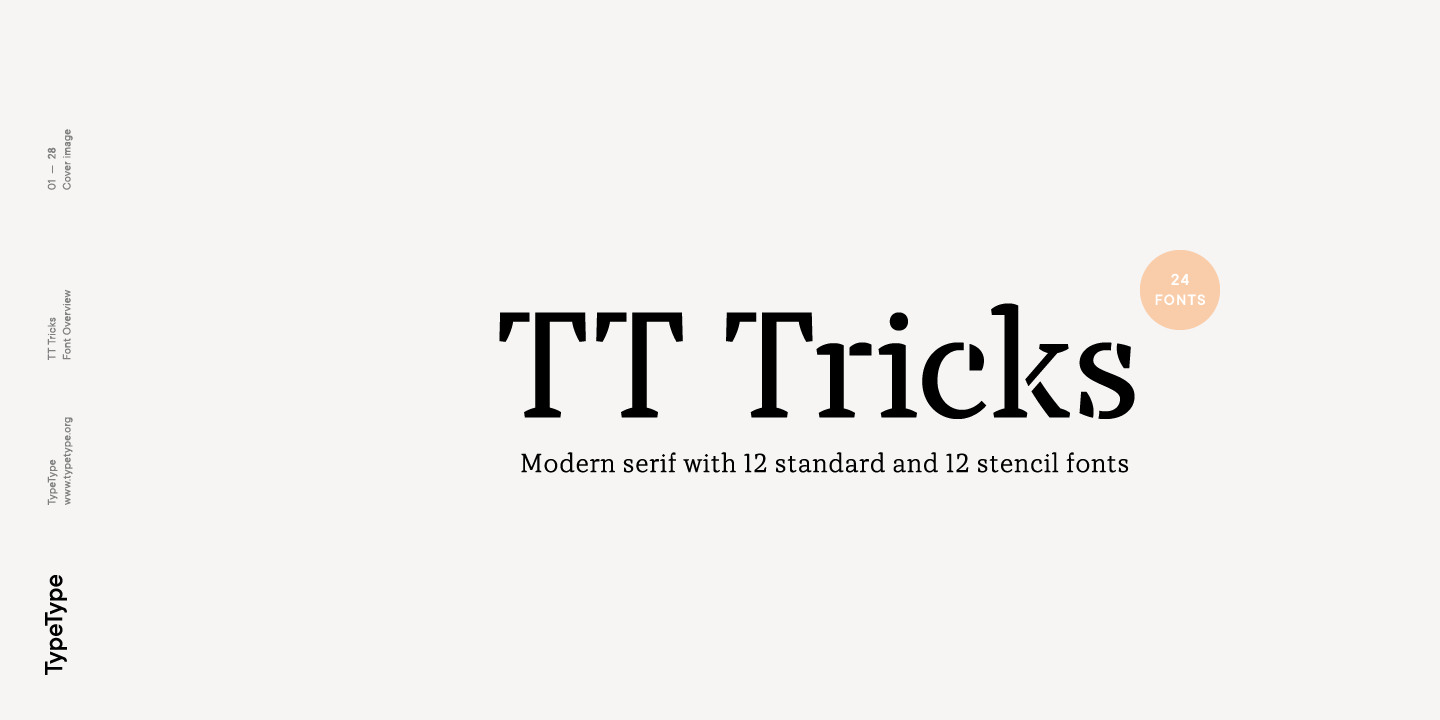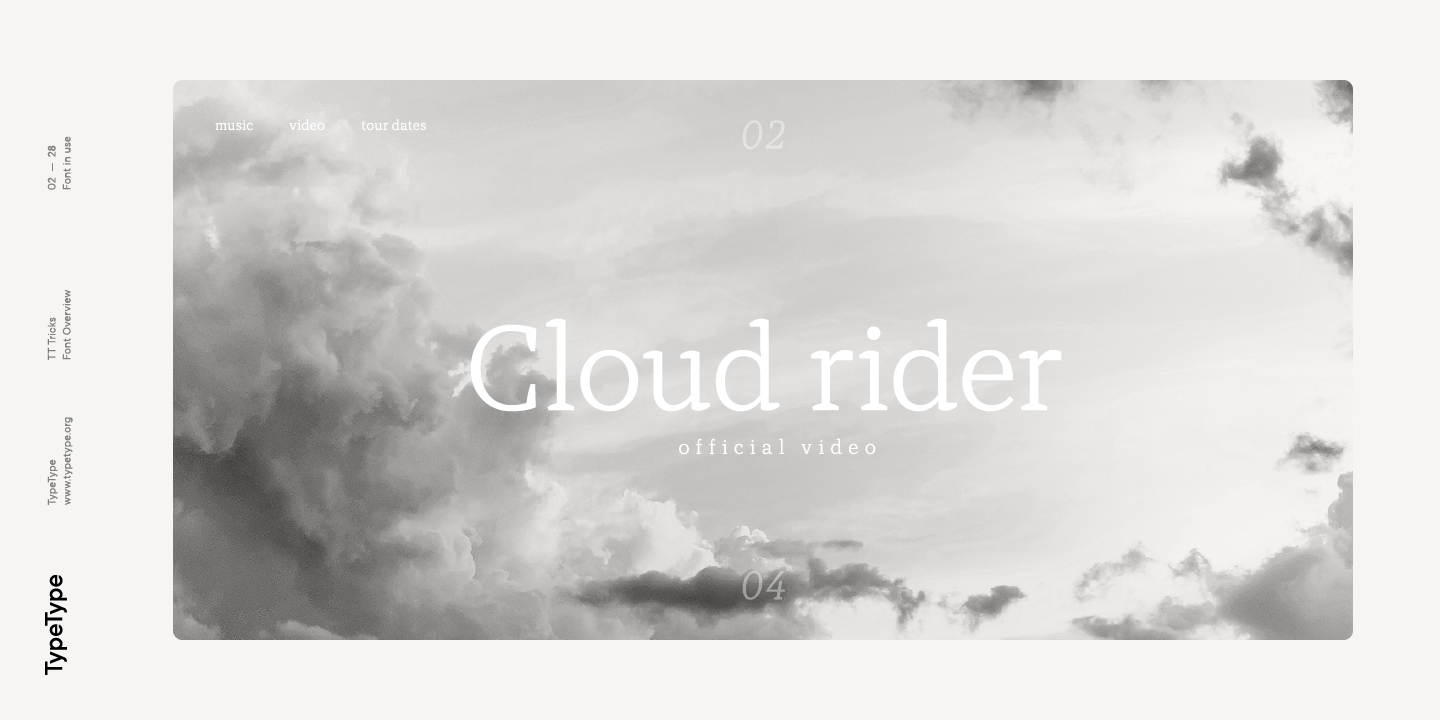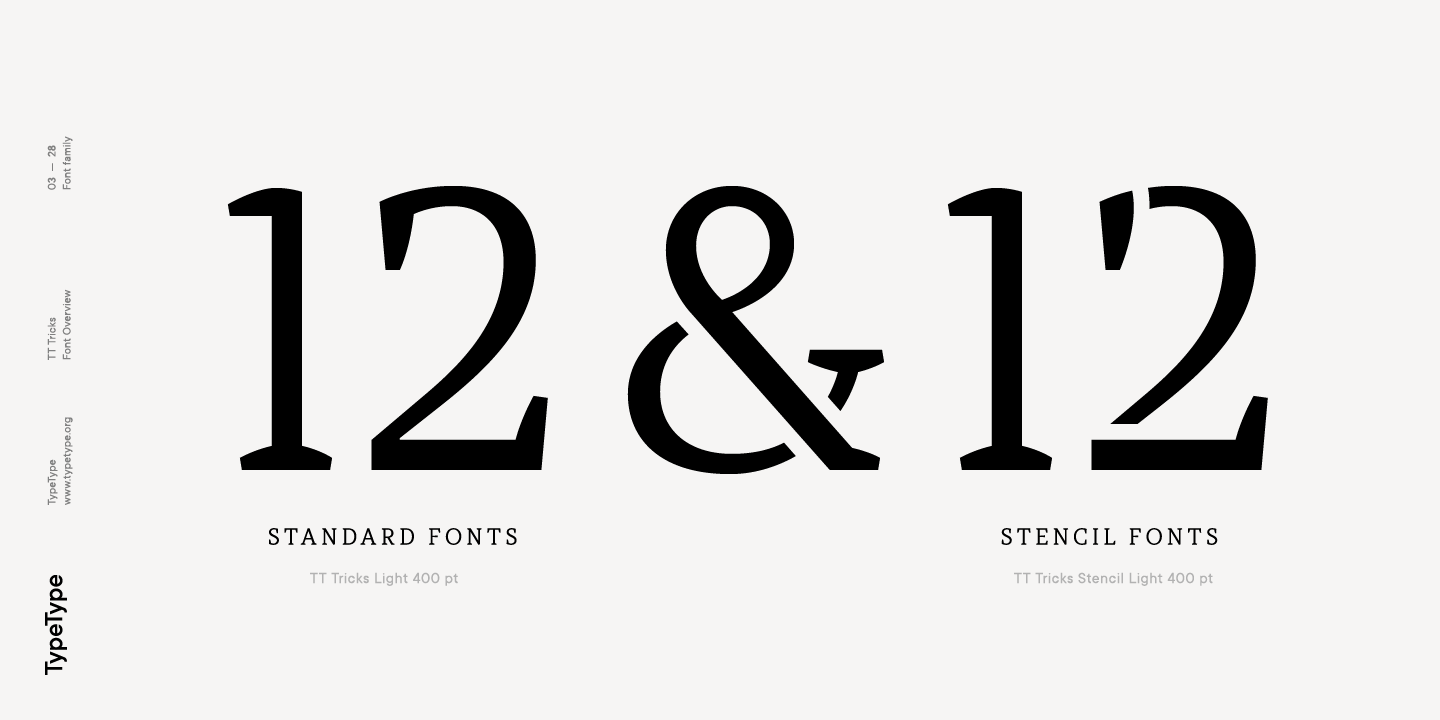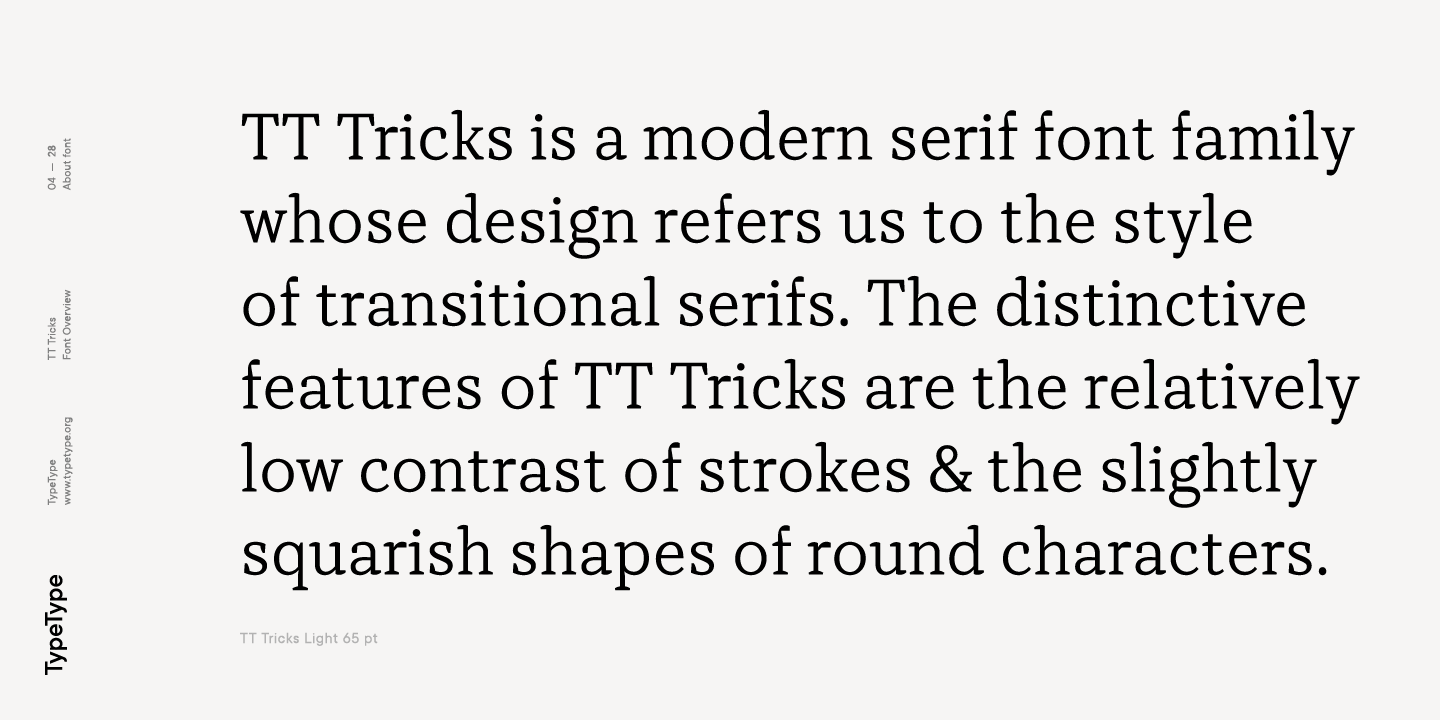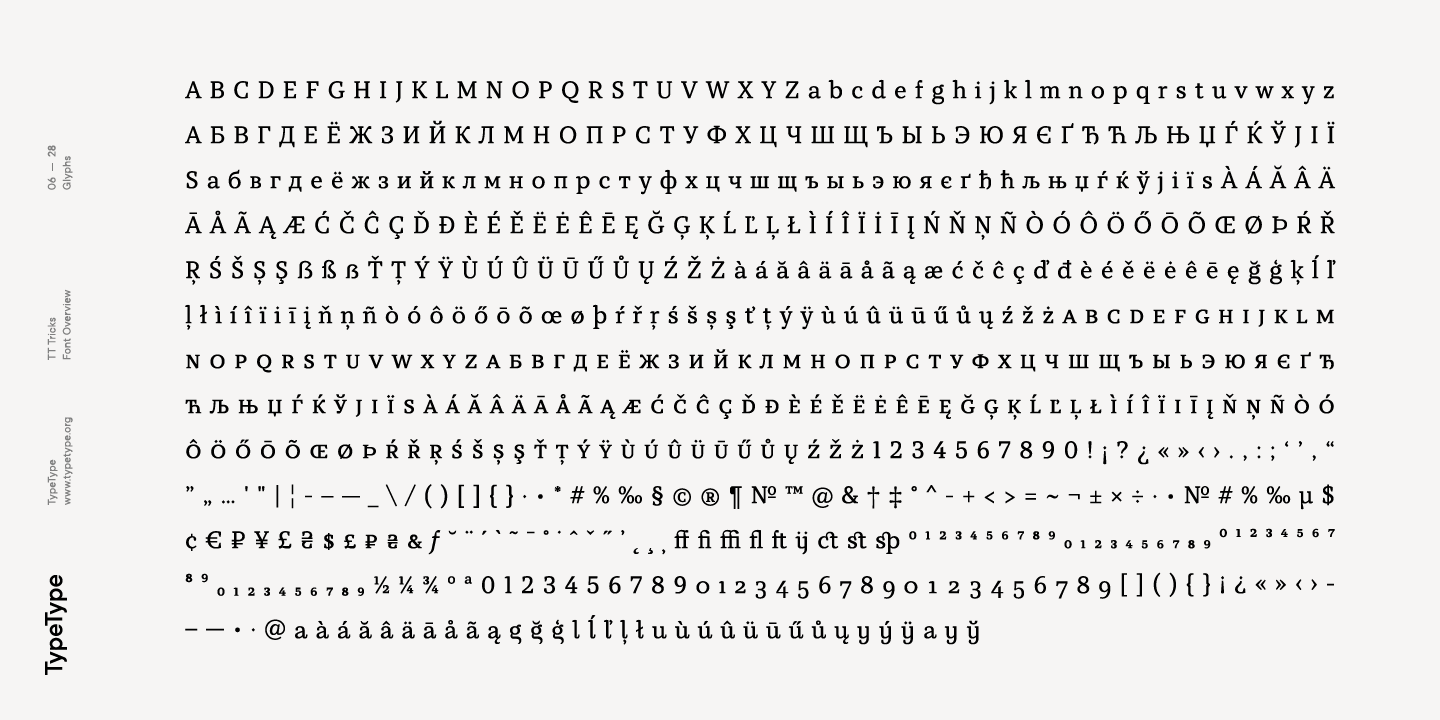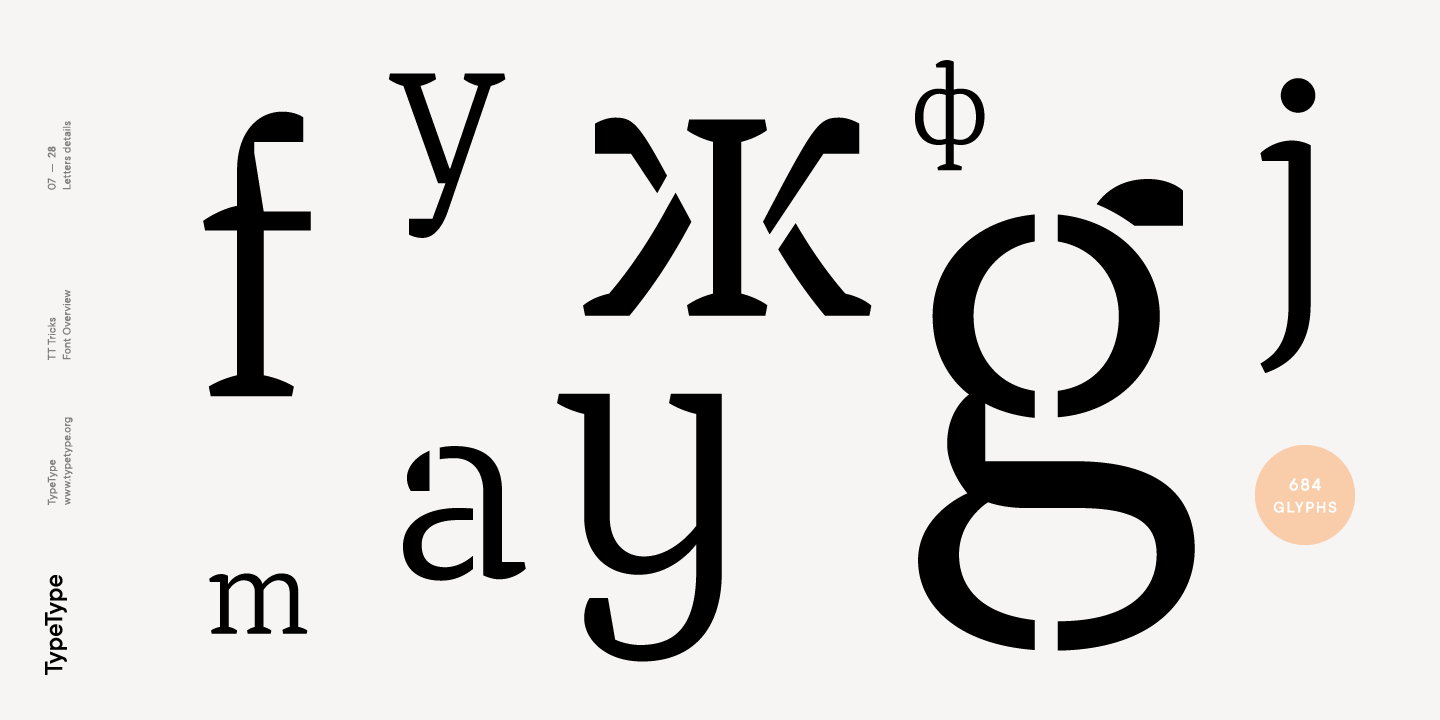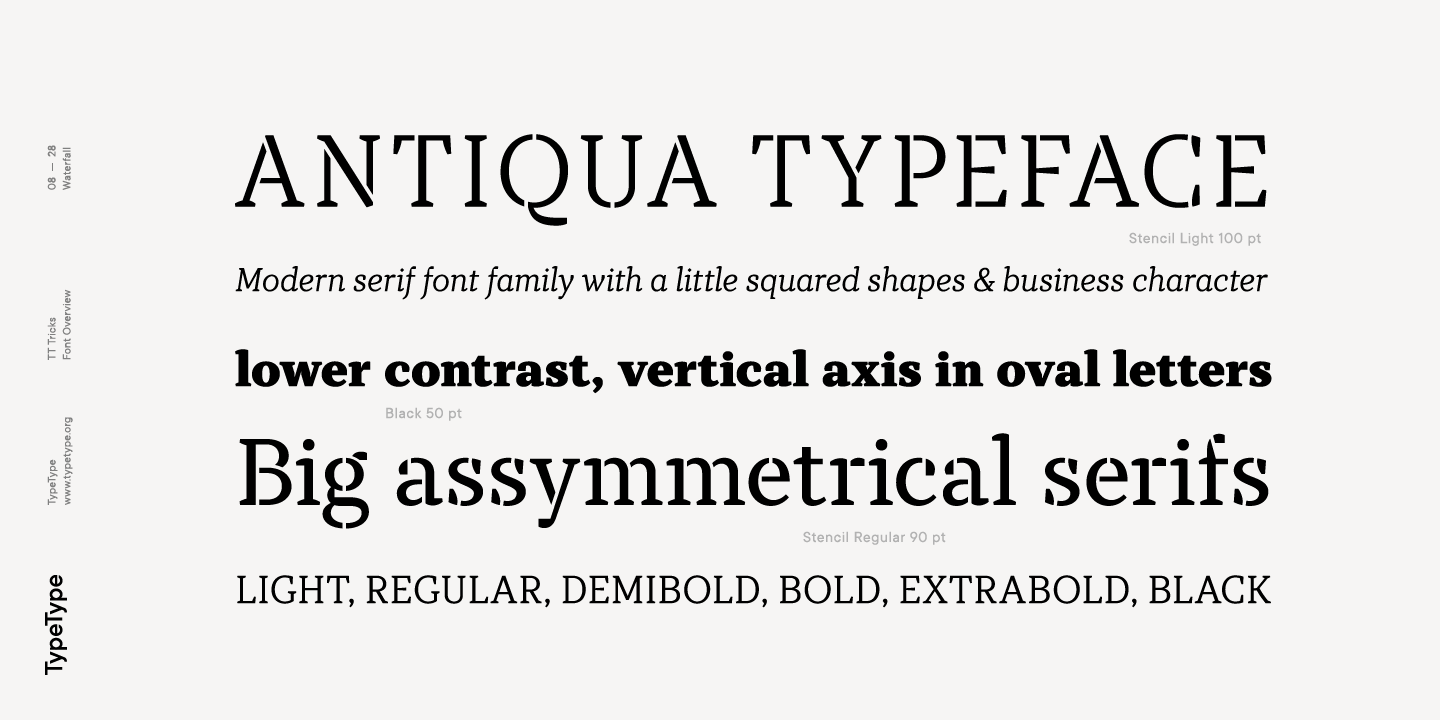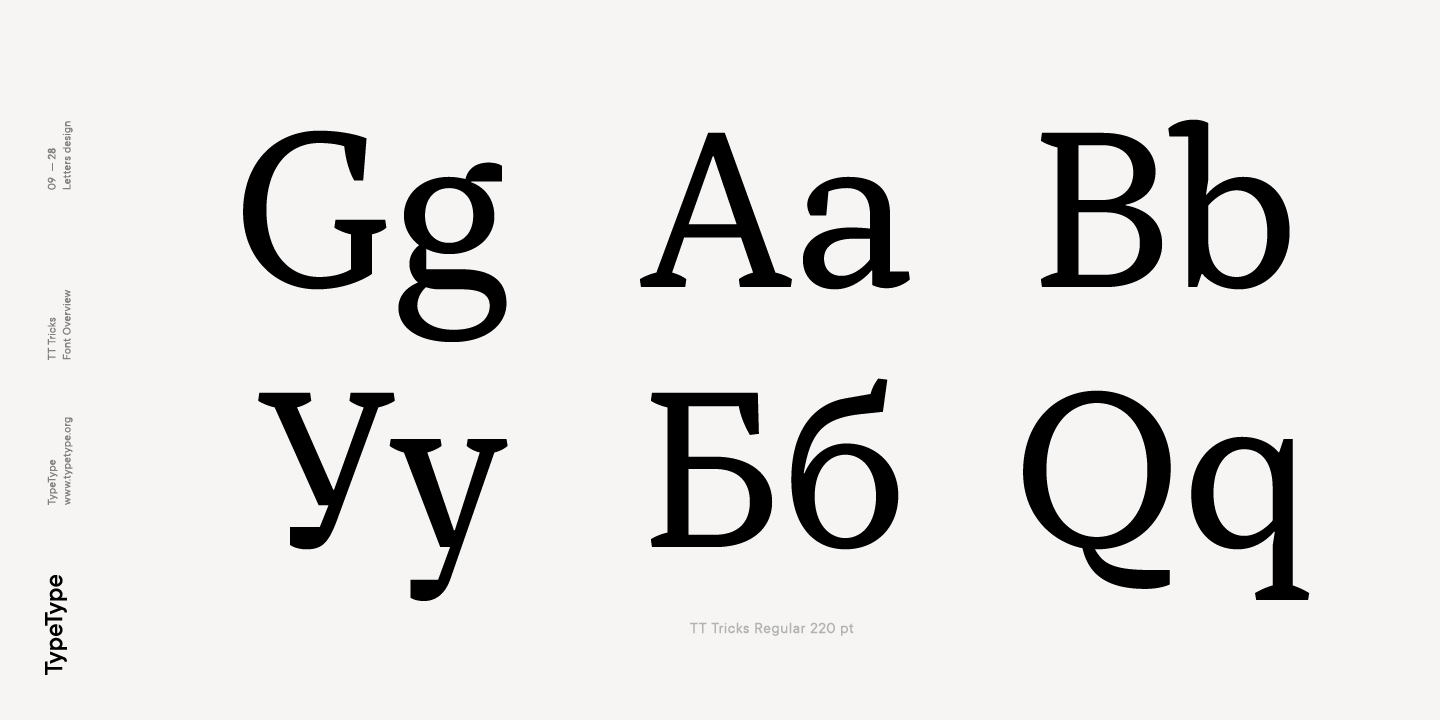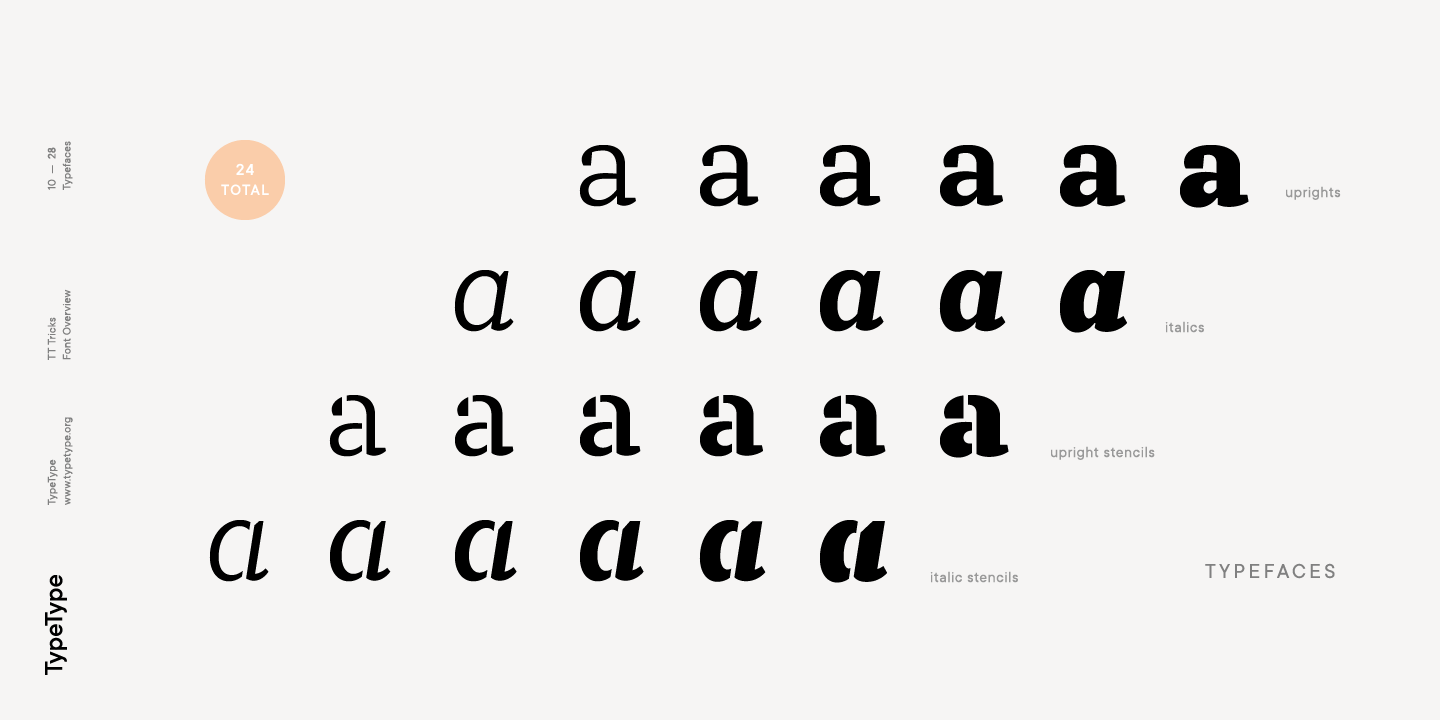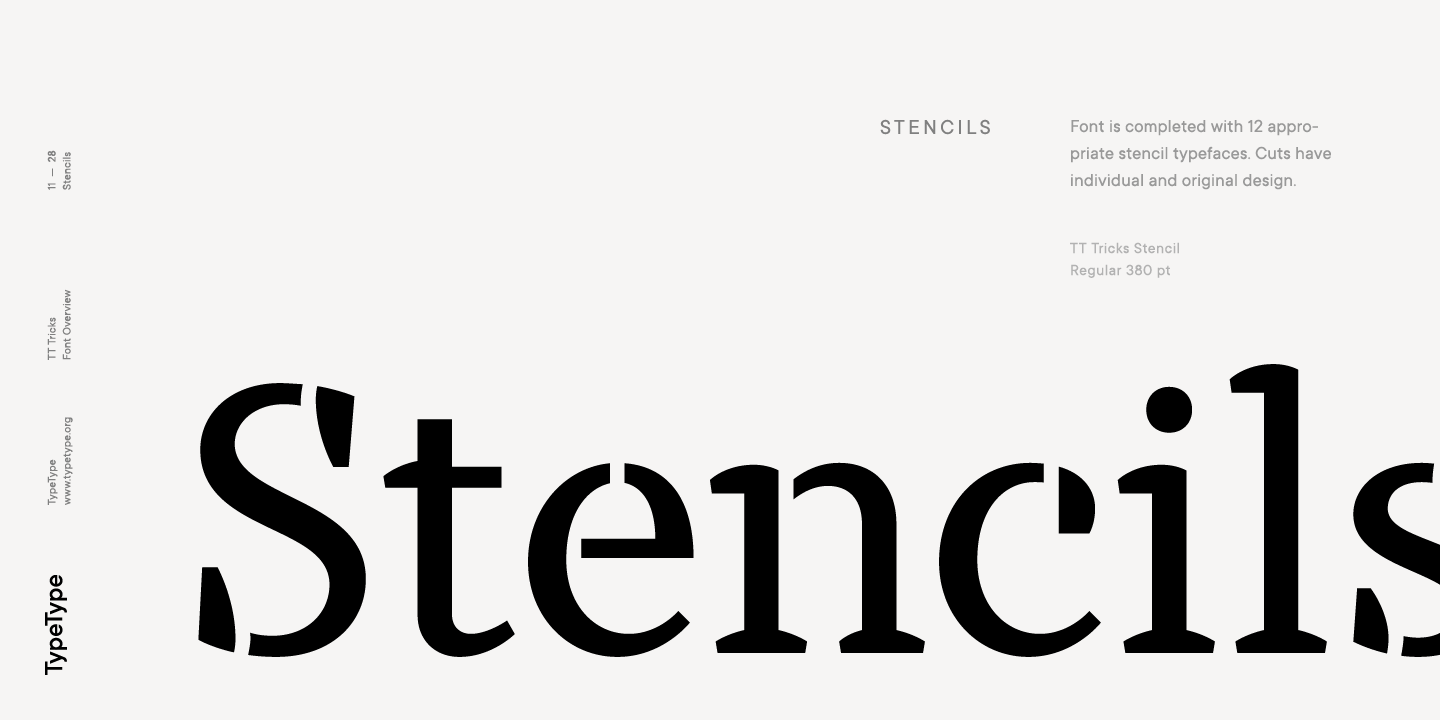
TT Tricks Family (24 fonts)
TT Tricks is a modern serif font family whose design refers us to the style of transitional serifs. The distinctive features of TT Tricks are the relatively low contrast of strokes, the slightly squarish shapes of round characters and the emphasized businesslike nature.
The original idea of TT Tricks is based on the graduation project of student Sofia Yasenkova, who chose to create a daily planner font as her final project. This led to many stylistic decisions, for example, the large and asymmetrical serifs, low contrast strokes, and the presence of interesting details.
In the process of working on TT Tricks, we have significantly revised the initial idea and expanded the areas of possible font application, while maintaining the original spirit of the project. Despite the large number of display details, the typeface looks great in a small point size, and also when it is used in large text arrays.
TT Tricks features an original stylistic set which, when turned on, adds features of typical pointed-pen serifs to some of the lowercase characters. In addition, TT Tricks has small capitals for Latin and Cyrillic alphabets, as well as several interesting ligatures.
The TT Tricks font family consists of two font subfamilies, these are the main version and the version with the original stencil cutting. Each subfamily consists of 12 fonts: Light, Regular, DemiBold, Bold, ExtraBold, Black + True Italics. Following a good tradition, TT Tricks supports a large number of OpenType features: ordn, case, c2sc, smcp, frac, sinf, sups, numr, dnom, onum, tnum, pnum, dlig, liga, calt, salt (ss01).